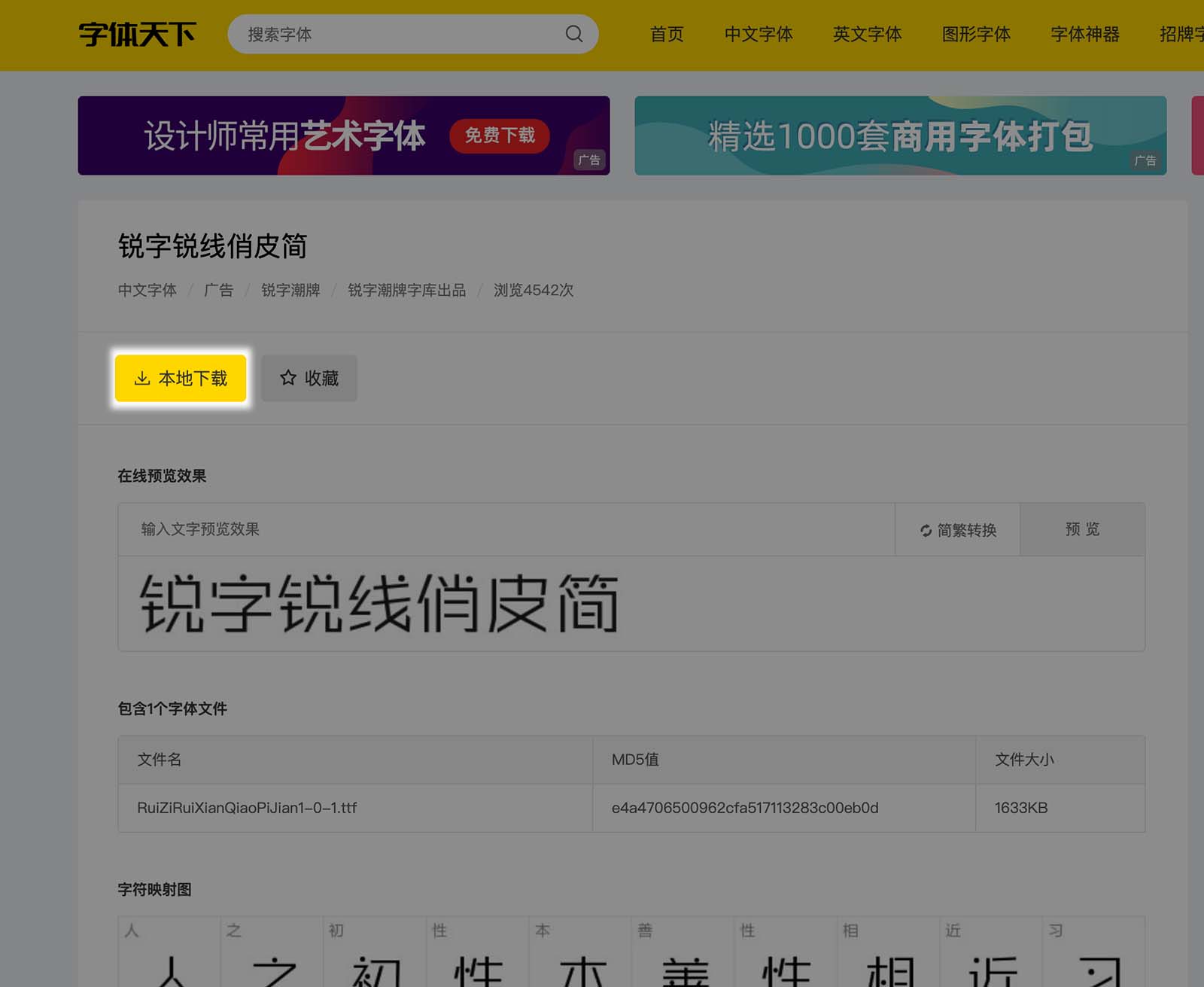
(simplified) Big Rui Qiao 1.0
BIG Rui Qiao 1.0 preview
Big Rui Qiao 1.0 (锐字锐线俏皮简1.0) is a blocky and edgy simplified Chinese font, with added artsy style by replacing some strokes with rounded dots. Many of the strokes are not connected too, creating the stencil-ish style to it.